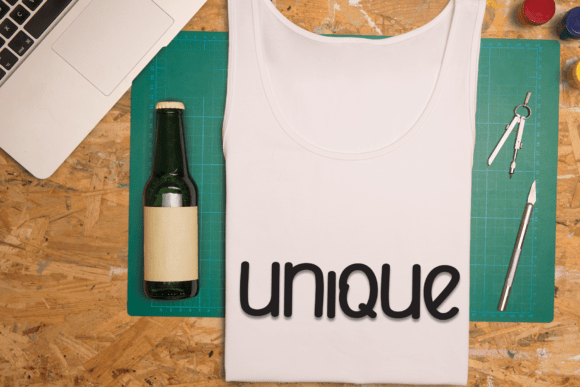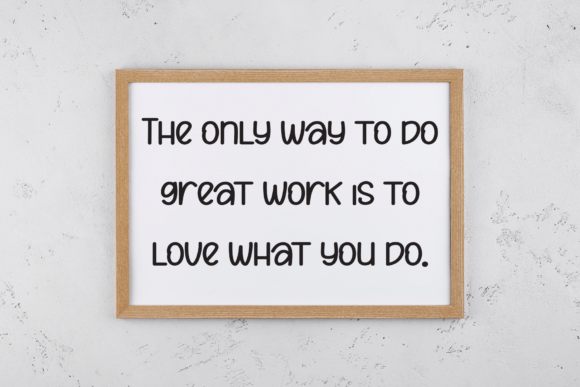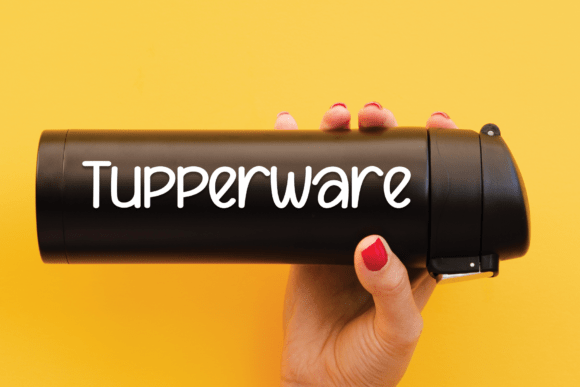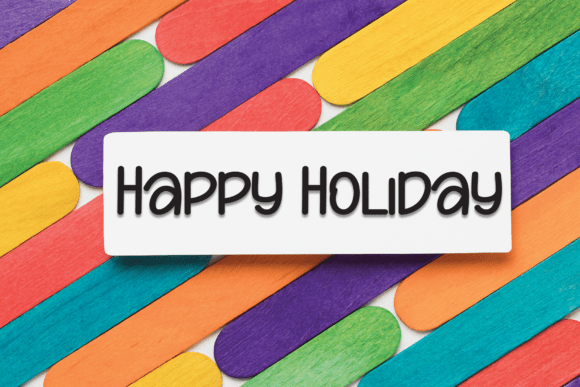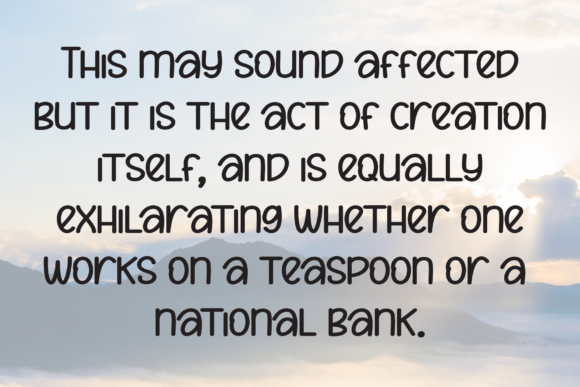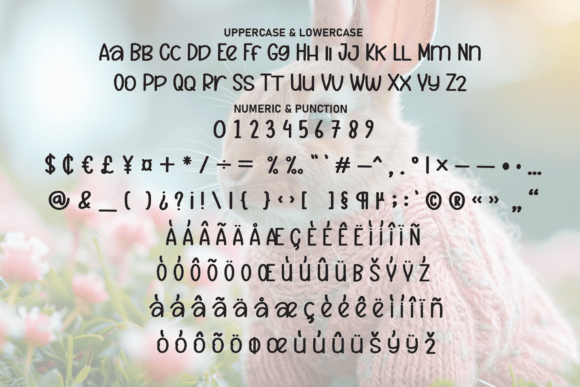
The Bunny Font: A Fresh and Friendly Addition to Your Design Toolkit
I’ll never forget the time I was working on a packaging design project for a local craft fair, and I just couldn’t seem to find the right font to bring my design to life. The client wanted something fresh, friendly, and approachable, but everything I tried seemed either too generic or too over-the-top. That’s when I stumbled upon the Bunny font, and let me tell you, it was love at first sight! ✨
An Honest Review of Bunny Font
- ✨ Clean lines and a relaxed structure that give it a super approachable vibe
- ✅ Perfect for packaging, posters, and social media graphics
- ✅ Adds charm and clarity to projects while maintaining a polished appearance
- ✅ Works beautifully for both headings and short paragraphs of text
While Bunny font is an amazing addition to any design project, there are a few things to keep in mind: ⚠️ It’s a display font, so it’s best used in larger sizes (18pt+). Also, some of the more intricate details might get lost at smaller sizes, so use it wisely! 🤔
One of the best things about Bunny font is its OpenType features and glyphs. With a range of stylistic alternates and swashes, you can customize your text to fit your brand’s unique style. To access these features, simply:
The Backstory Behind Bunny Font
Bunny font was designed with the goal of creating a fresh and friendly display font that would add a touch of approachability to any design project. With its clean lines and relaxed structure, Bunny is the perfect choice for designers looking to add a bit of charm and clarity to their work. Whether you’re working on packaging, posters, or social media graphics, Bunny font is sure to bring a smile to your client’s face! 🙂
Q: Is Bunny font suitable for body text?
A: While Bunny font is a beautiful display font, it’s best suited for headings and short paragraphs of text. For longer body text, you may want to consider a more traditional serif or sans-serif font.